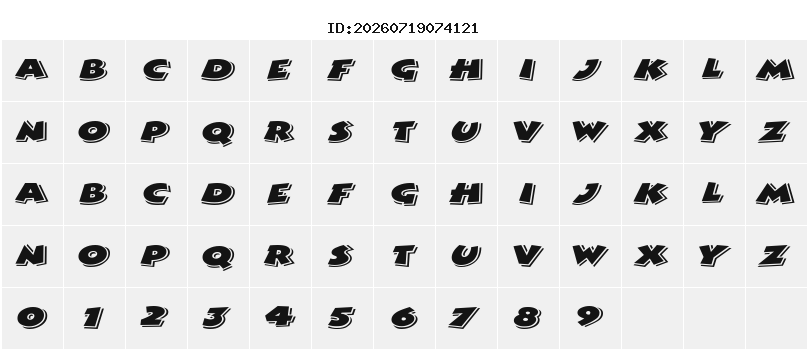
ComicStripExtended Preview
• Font Name: ComicStripExtended
• Full Font Name: ComicStripExtended
About ComicStripExtended.ttf
ComicStripExtended.ttf is a modern, elegant sans-serif font designed for ultimate readability and visual harmony. Perfect for branding, headlines, web design, and print materials.